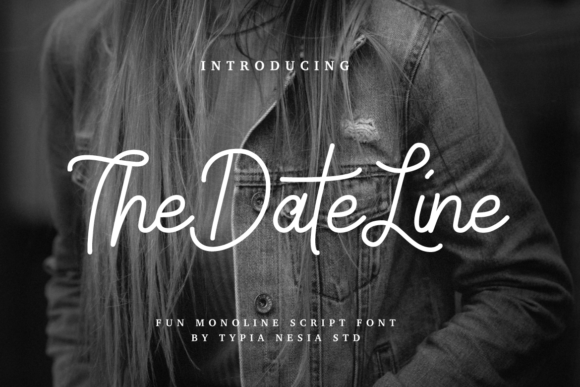
Journey into the realm of captivating creativity with The Date Line Font, a script font that exudes a charming, handwritten allure. Its monoline strokes dance across your designs with a casual elegance, adding a personal touch that resonates with your audience. The Date Line Font is an artist's playground, providing endless opportunities for expression.
Visualize your logos adorned with The Date Line's graceful curves, embodying the essence of your brand. Envision your blog headers exuding a touch of elegance, inviting readers into your captivating world of content. Picture wedding invitations that evoke a sense of timeless romance, capturing the essence of a love story. With The Date Line Font, your designs transcend the ordinary, becoming cherished keepsakes that speak to the heart.
The versatility of The Date Line Font extends beyond traditional design realms. Unleash your creativity in crafting unique t-shirts that make a statement, turning everyday attire into wearable art. Create posters that come alive with vibrant messages, captivating the attention of passersby. Explore an array of projects, from branding materials that leave a lasting impression to social media graphics that spark engagement—The Date Line Font enhances every visual narrative.
Embrace the beauty of The Date Line Font, and unlock the potential of your designs. Let your imagination soar as you craft creations that captivate, inspire, and leave an indelible mark on the world. Your journey to design excellence starts here.